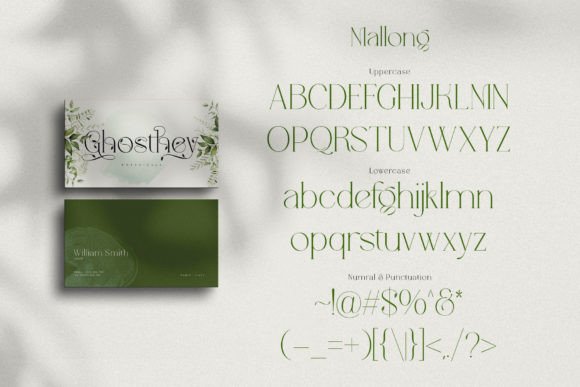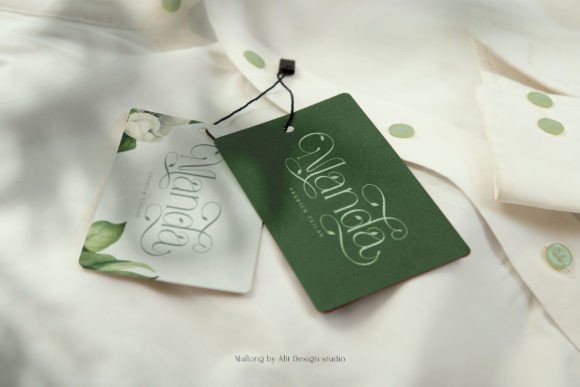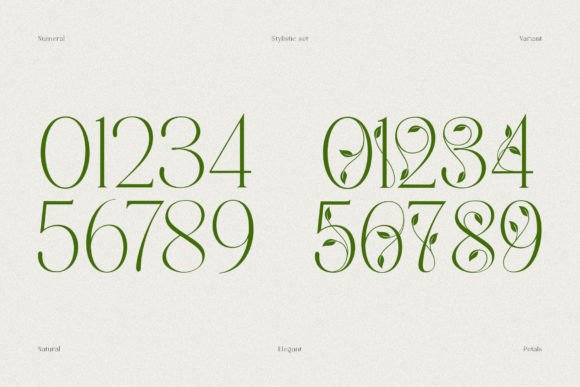
Introduction to Mallong Font
As a designer, there’s nothing quite like that ‘aha’ moment when you stumble upon the perfect font to elevate your creative project. It’s like finding a hidden gem that makes all the difference in the world. For me, that moment came when I discovered the Mallong Font – a beautiful serif typeface that effortlessly combines elegance and naturalness.
With its classic serif details and unique leaf-outline swash, the Mallong Font is a design resource that’s hard to resist. Whether you’re working on a high-quality brochure, a website, or a social media campaign, this font is sure to bring a touch of sophistication and organic charm to your work.
Key Features of Mallong Font
- Unique, hand-crafted design elements, setting it apart from standard fonts and adding a touch of creativity to any project.
Honest Review: Mallong Font
As a designer, I’m always on the lookout for high-quality design resources to elevate my creative projects. The Mallong Font caught my eye with its unique style and versatility.
Here are some pros that I found with the Mallong Font:
- ✨ High quality: The font is well-designed and looks great on any background.
- ⚠️ Limited font styles: The font only comes in a few styles, which might limit its versatility for some projects.
- ⚠️ Not suitable for large text: The font might not be the best choice for large text, as it can become difficult to read.
Overall, I think the Mallong Font is a great addition to any designer’s toolkit. While it has some limitations, its unique style and high quality make it a valuable resource for creative projects.
Common Use Cases for Mallong Font
Mallong Font is perfect for creative projects, such as wedding invitations, business cards, and social media graphics. Its elegant and sophisticated design makes it ideal for a wide range of applications.